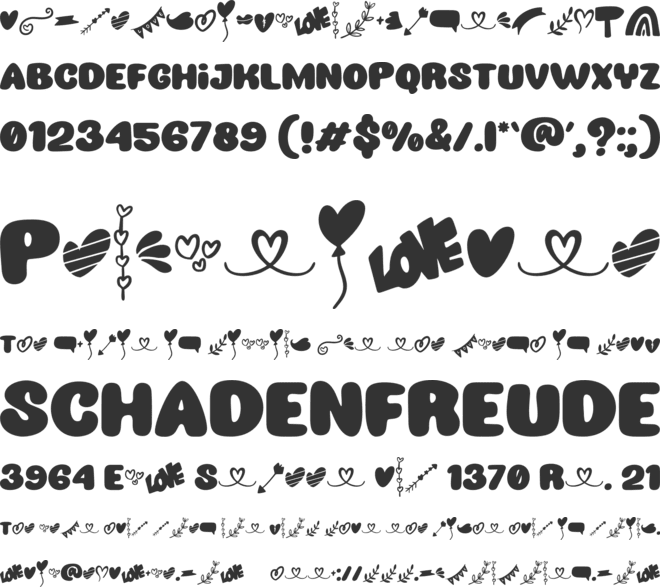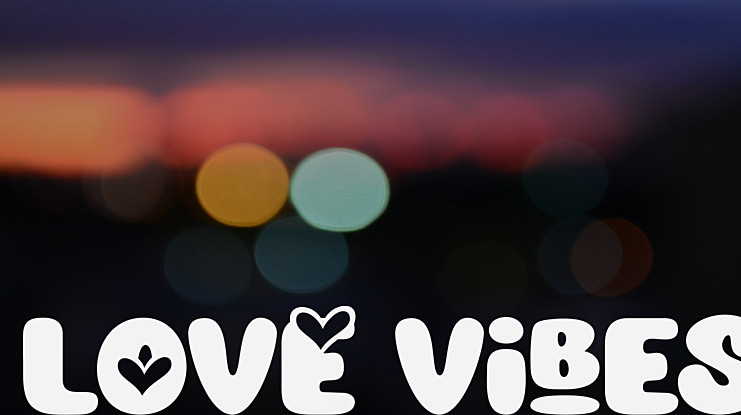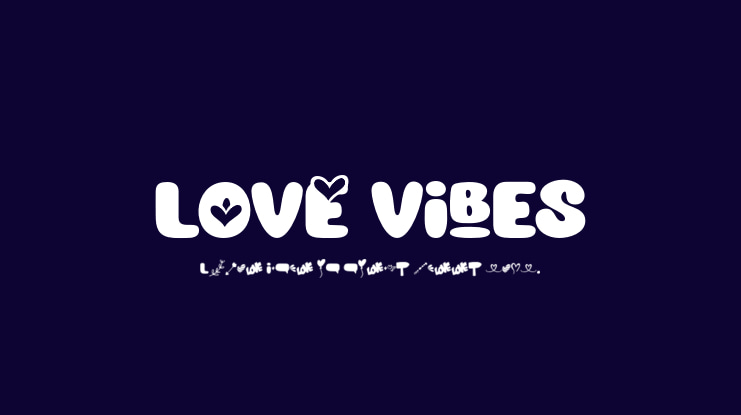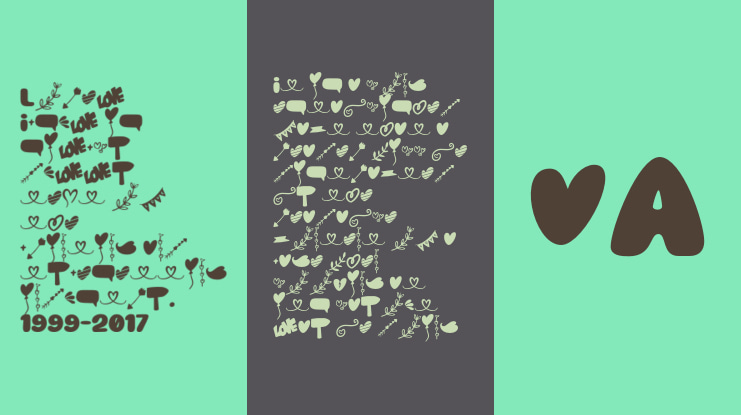
Love Vibes Font
Love Vibes is a bold Valentine's decorative font with cute letters. Add it to your Valentine's crafts, love movie posters, t-shirts, and anything else that requires a spectacular look.